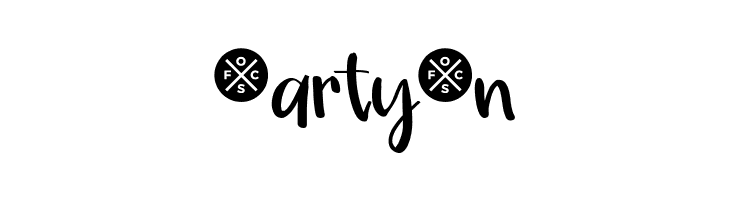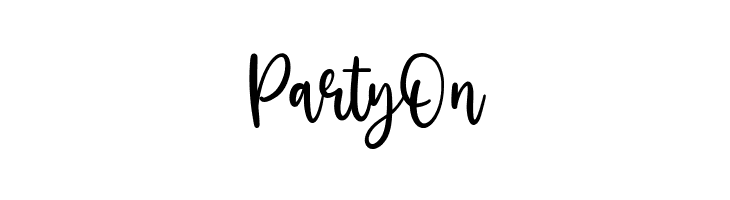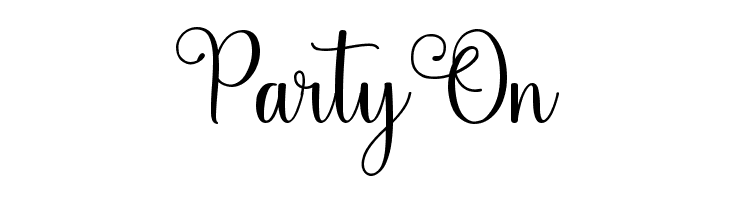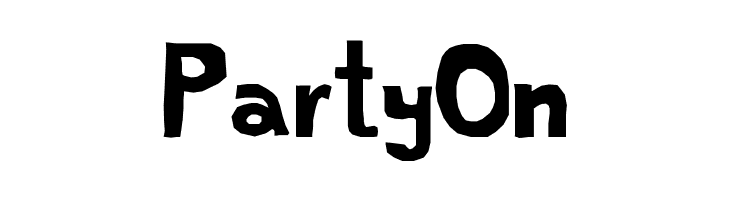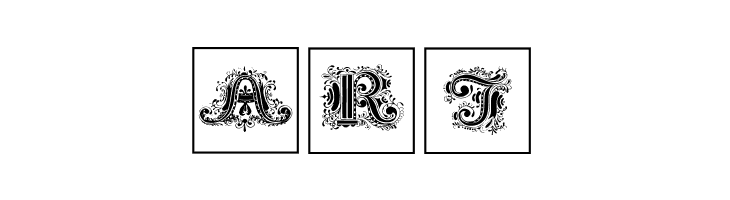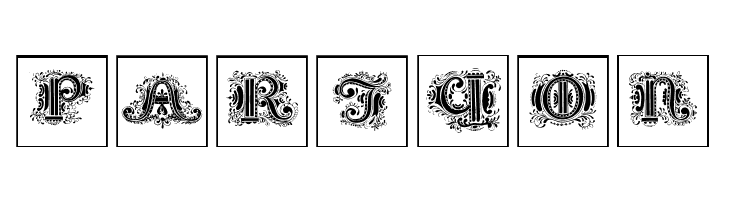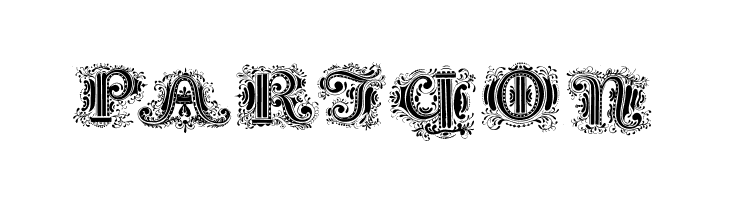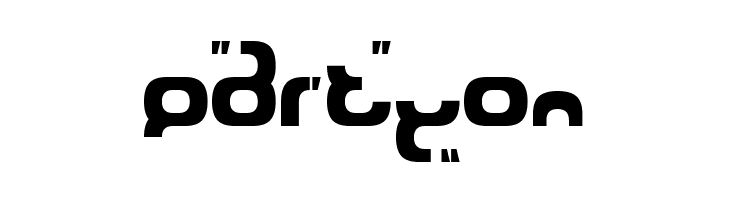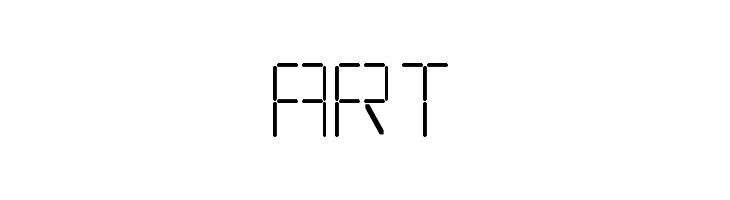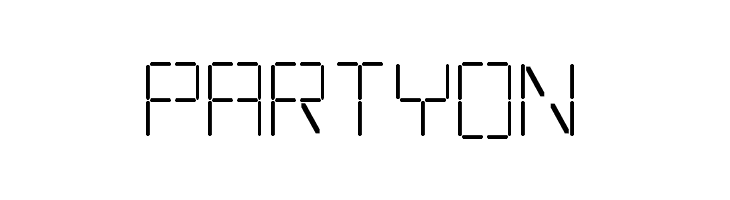
• Silure
A bold, decorative font with playful, rounded characters and whimsical shapes.
• Silverball
A segmented, digital-inspired font with a futuristic and technical style.
• Silverglow
A lively, flowing script font with elegant loops and a handwritten appeal.
• SilverStream
• SilvestreInitials
An ornate and decorative font with intricate floral embellishments.
• SilvestreInitialsSquares
Ornate, decorative initials with floral embellishments in square borders.
• Simple Brush Script
A lively, handwritten brush script font with dynamic, fluid strokes.
• SimpleLife
• sin nombre
A bold, geometric font with a futuristic, digital style.
• Sindentosa
A whimsical and elegant script font with playful loops and swirls.